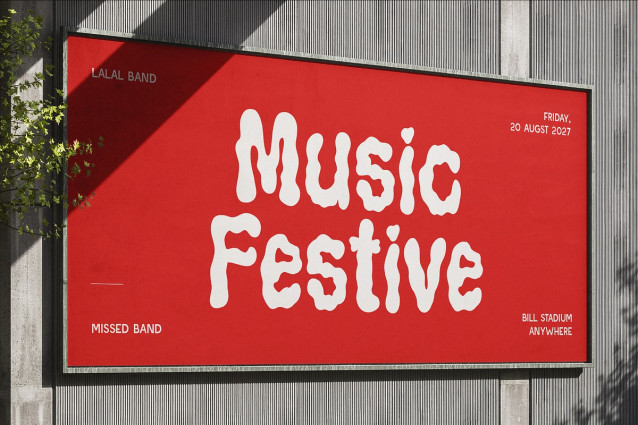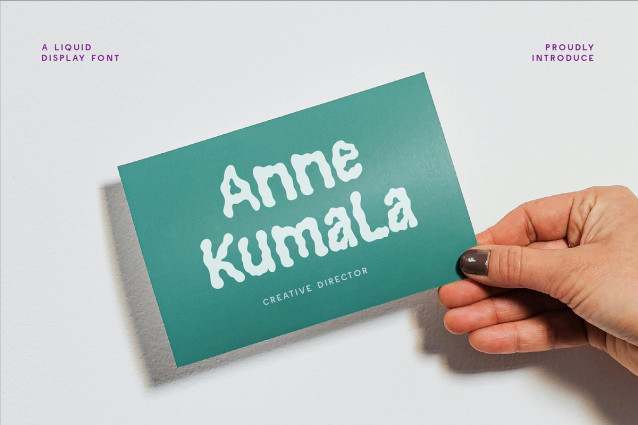
CF Plumpy Bold Font
CF Plumpy Bold Font, a striking display font inspired by the freeform beauty of liquid movement. With its blobby shapes, wavy lines, and organic flow, Plumpy Bold delivers a bold yet playful presence that’s impossible to ignore.
Designed to grab attention, this font is perfect for branding, poster headlines, festival graphics, experimental design, album covers, creative merchandise, or any project that craves a dynamic and fluid vibe.
Its unique texture mimics flowing ink or melting forms, creating a surreal and modern statement in every word.